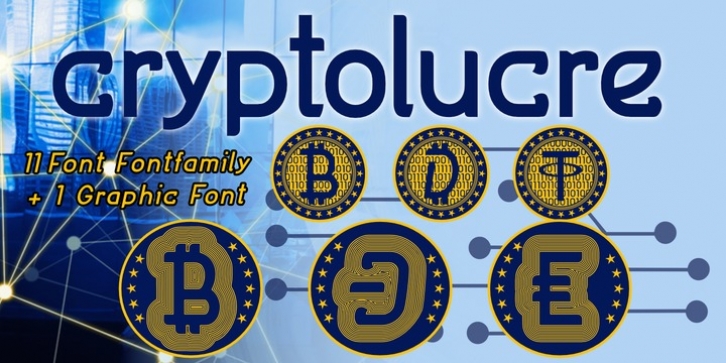
Cryptolucre is a font specifically for all crypto currencies like Bitcoins, Litecoins, Ethereum, Ark, Siacoin, Golem and what else is there. The icon version includes some existing currency logos and newly invented currency logos. The sans serif font comes in 11 font styles with 1 graphic font.